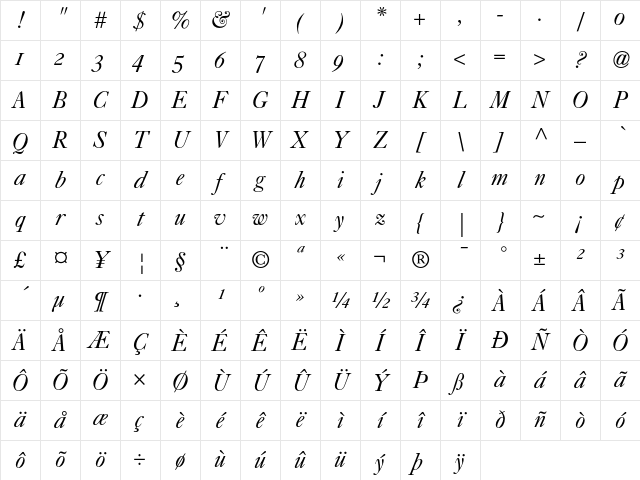
Caslon 540 Italic Oldstyle Figures
Style: Italic Oldstyle Figures
Design Context for Caslon 540
Caslon 540 carries the refined structure of traditional serif typography, with bracketed terminals and considered proportions that communicate credibility and craft. The slanted form adds forward momentum and visual energy.